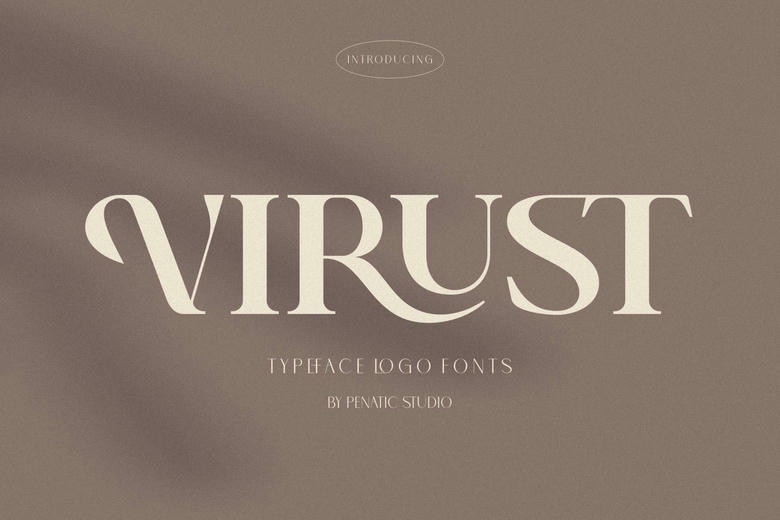
Virust Font
Virust is perfect for your branding needs and your company logo. Virust is somewhat slick and slightly thick as it seems to want to come across as hard and wanting or possessing independence, with numerous options and loops.
Virust Serif Font